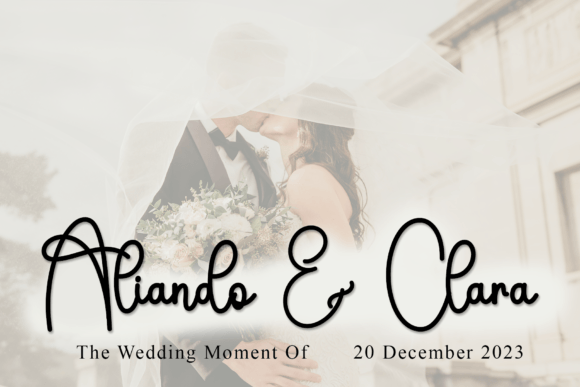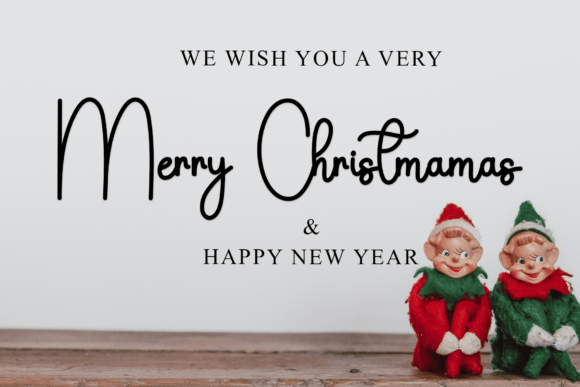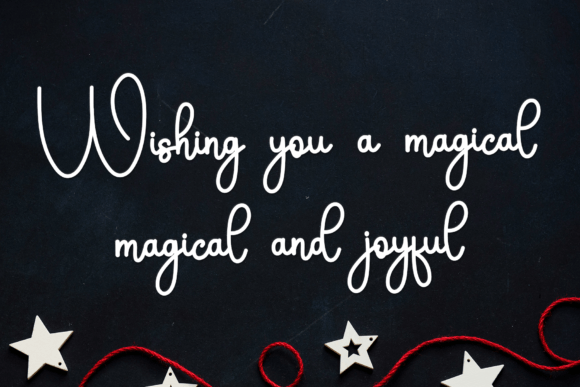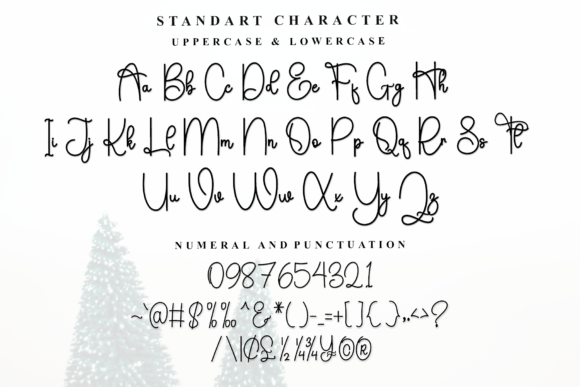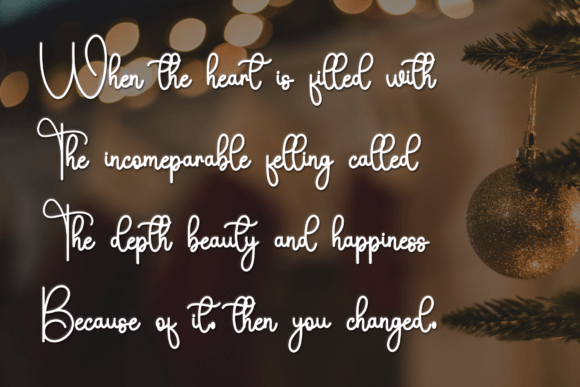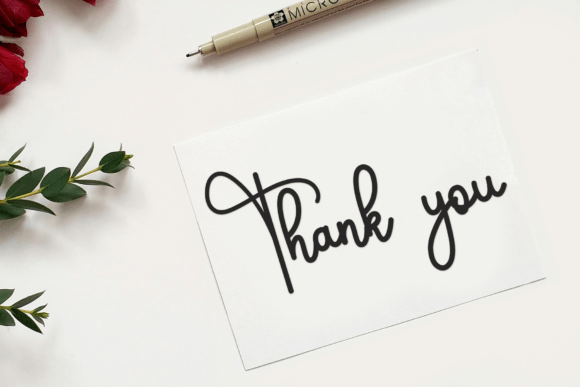
Introduction to Christmas Handwriting Font
As a designer, there’s nothing quite like the rush of finding the perfect font to bring your creative project to life. For many of us, the holiday season is a time of joy and nostalgia, and the right font can evoke those feelings perfectly. I still remember the first time I stumbled upon a beautiful, handwritten font that captured the essence of Christmas. It was love at first sight – and that’s exactly how I feel about the Christmas Handwriting Font.
This delightful font is a design resource that’s sure to bring a smile to your face and a touch of magic to your designs. With its high-quality, festive flair, it’s perfect for greeting cards, gift labels, and any other creative project that needs a dash of holiday cheer. And the best part? It’s free to download, complete with a transparent background that makes it easy to use in any design scenario.
Key Features of Christmas Handwriting Font
- Unique and festive design, perfect for creative projects and holiday-themed designs
- Perfect for use in graphic design, digital art, and other creative projects where a festive, handwritten touch is desired
- Comes in a variety of colors and styles, making it a versatile design resource for any creative project
Honest Review: Christmas Handwriting Font
As a designer, I’m always on the lookout for high-quality design resources to enhance my creative projects. The Christmas Handwriting Font caught my eye, and I was excited to try it out.
What works well: ✨ The font is incredibly detailed, with a beautiful, handwritten feel that’s perfect for festive designs. The transparent background makes it easy to place over any image or color, giving you maximum flexibility. The high quality of the font ensures that it looks great even at larger sizes.
However, there are a few limitations: ⚠️ The font is only available in a single weight, which might limit its versatility in certain designs. Additionally, the font might not be suitable for professional use due to its handwritten nature.
Overall, I’m impressed with the Christmas Handwriting Font, and I would recommend it for personal or small-scale creative projects. It’s a great design resource to have in your toolkit, especially during the holiday season.
The Christmas Handwriting Font is perfect for holiday greeting cards, gift tags, and party invitations. It’s also great for creating custom social media graphics and promotional materials.